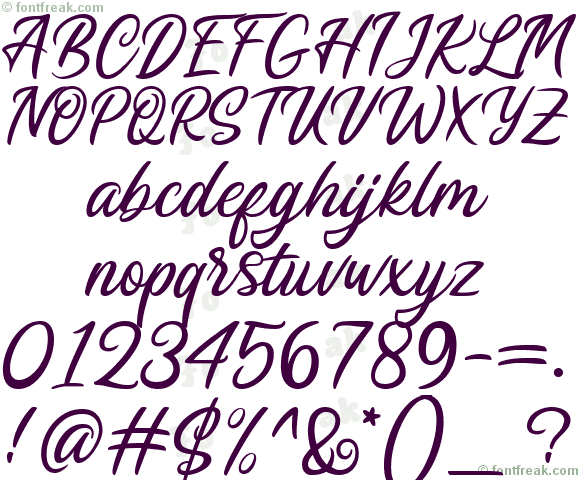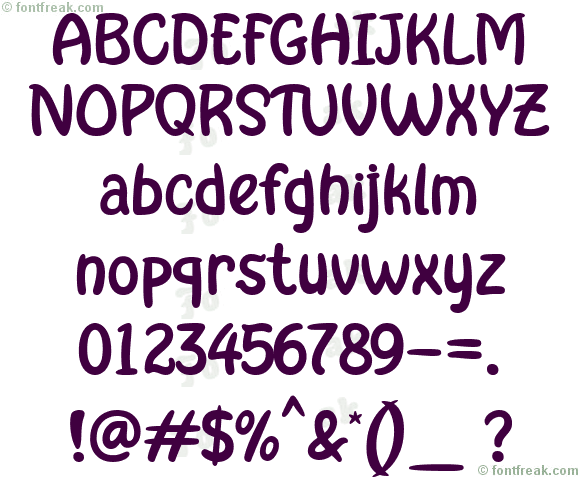
Misellia And Friend
Misellia And Friend Script
About Misellia And Friend
Misellia And Friend is a delightful script font designed by Situjuh Nazara, falling under the category of handwritten typefaces. This font exudes a playful and friendly vibe, characterized by its smooth, flowing strokes and a slightly varying stroke weight that adds a touch of personality. The rounded forms and casual spacing contribute to its approachable aesthetic, making it an excellent choice for a variety of creative projects.
Visually, Misellia And Friend features soft curves and whimsical elements that enhance its charm. The decorative aspects are subtle yet effective, giving the font a unique flair without overwhelming the viewer. This makes it versatile and suitable for both formal and informal applications. The harmonious balance of its characters allows for easy readability, even at smaller sizes.
This font is perfect for a range of use cases, including wedding invitations that call for a touch of elegance, movie posters where a light-hearted theme is needed, and restaurant menus that aim to convey a warm and inviting atmosphere. Additionally, it works well for children's book covers, adding a fun and imaginative touch, and social media graphics that seek to engage audiences with a friendly tone.
Target audiences for Misellia And Friend include graphic designers looking for a unique typeface to enhance their projects, small business owners aiming to create memorable branding, and content creators who want to add a personal touch to their work.
What sets the Misellia And Friend font apart is its ability to blend playfulness with elegance, making it a versatile choice for various design needs. For those interested in exploring this charming typeface, the Misellia And Friend font free download is readily available, inviting you to incorporate its delightful style into your next creative endeavor.